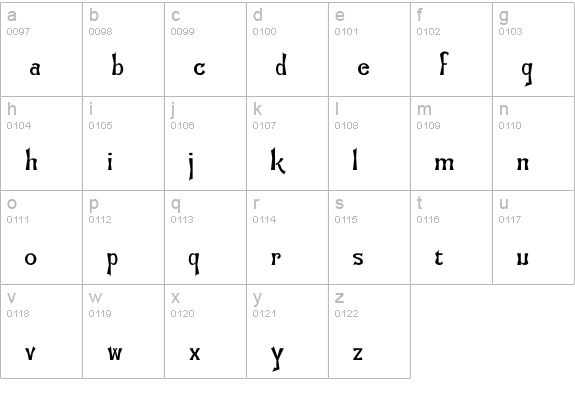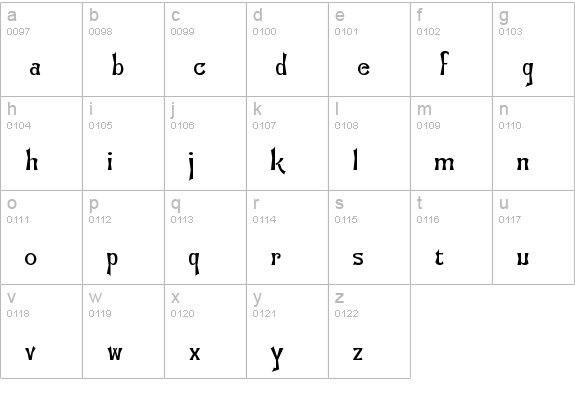
Flemish Font Details
The Flemish font is a classic and elegant typeface that exudes sophistication and timeless charm. Its intricate details and graceful curves make it perfect for adding a touch of refinement to any design project. This versatile font can be used for a wide range of purposes, from invitations to branding to editorial layouts. What makes the Flemish font even more appealing is that it is completely free to download at FontsMarket.com. This means that you can easily access this stunning typeface without any cost, making it a valuable addition to your font collection. Whether you're a designer looking for a new go-to font or a hobbyist wanting to elevate your projects, the Flemish font is a fantastic choice that won't break the bank. Download it today and start creating with this beautiful and freely available typeface.